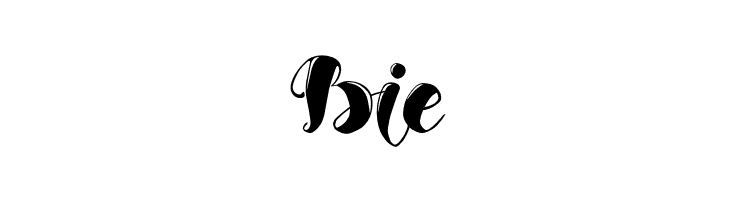
A modern, cursive handwritten font with smooth, connected strokes.
An elegant, flowing script font with delicate, thin strokes and cursive letterforms.
A playful, Halloween-themed font with bold, jagged edges and a carved appearance.
A delicate, flowing handwritten font with interconnected letters and thin strokes.
A dynamic, flowing script font with elegant cursive letterforms.
A stylish and elegant script font with flowing, cursive letterforms and a bold presence.
A bold, brushstroke-style font with dynamic and expressive characters.
An elegant, flowing script font with intricate, continuous strokes.
A modern, geometric font with elongated strokes and a whimsical touch.
A bold and dynamic script font with fluid, cursive letterforms.
A bold, distressed font with a hand-drawn, rugged appearance.
A delicate and flowing script font with elegant, continuous strokes.
A fluid and elegant handwritten font with a natural, flowing style.
A playful and artistic handwritten font with dynamic strokes.
A modern, high-contrast font with geometric and decorative elements.
An elegant, flowing script font with a sophisticated, handwritten aesthetic.
An elegant, flowing script font with delicate, interconnected strokes.
An elegant, flowing script font with dynamic stroke contrast.
An elegant, flowing script font with smooth, cursive strokes.
An elegant, flowing script font with a delicate and artistic flair.
A playful and elegant script font with flowing, interconnected letters.
A playful, monoline font with a hand-drawn, casual style.
A modern, geometric outline font with a consistent line thickness and slightly condensed style.
A modern, geometric font with bold, angular letterforms and a strong, industrial aesthetic.
A modern, elegant script font with high contrast and dynamic curves.
A playful handwritten font with flowing, connected letterforms and a whimsical style.
A playful, handwritten-style font with a casual and modern look.
A playful and whimsical handwriting font with flowing, cursive-like strokes.
A graceful and elegant script font with flowing, interconnected letters.
An elegant, flowing script font with ornate, interconnected letters.
A lively and expressive handwritten font with fluid, dynamic strokes and cursive connections.
A modern, geometric font with bold, angular lines and a futuristic style.
A modern, geometric outline font with a futuristic and angular design.
A modern, italic font with bold, geometric characters and a dynamic style.
A dynamic and fluid script font with elegant, flowing letterforms.